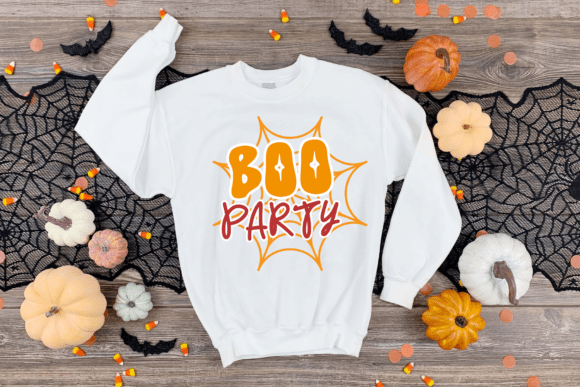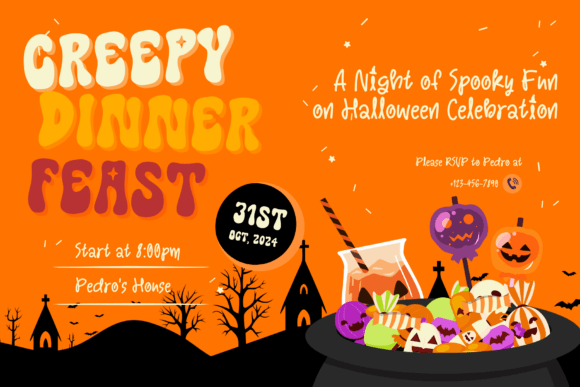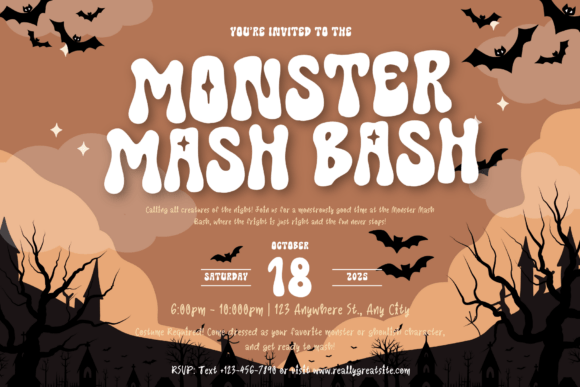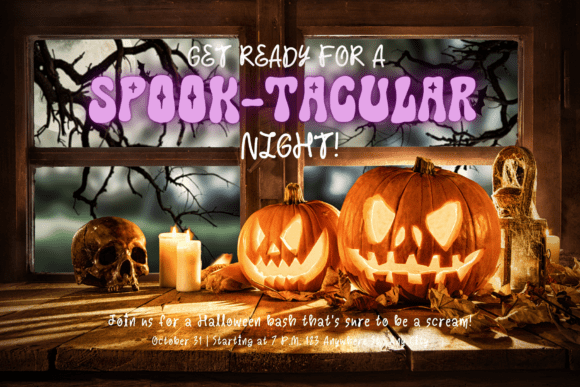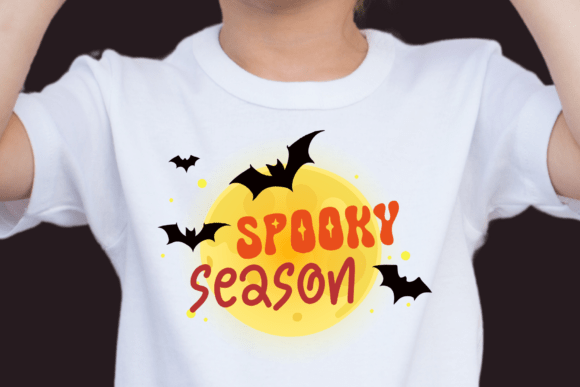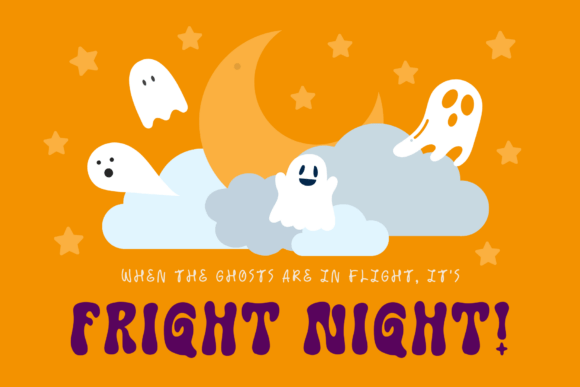
Introduction to Retro Witch Font
Do you remember the thrill of rummaging through your grandmother’s attic, uncovering old trinkets and dusty treasures that spark a wave of creativity? For designers, those moments can be the starting point for a new project, and the right font can be the magic that brings it all together. If you’re looking for a font that embodies the spirit of the 60s and 70s, you’re in luck, because we’re about to dive into the world of the Retro Witch Font.
This enchanting duo font is a masterful combination of a display and handwritten typeface that screams cool and groovy. With its playfulness and authenticity, the Retro Witch Font is the perfect design resource for any creative project that needs a high-quality, free download with a transparent background.
Whether you’re designing a logo, branding, ad, invitation, or greeting card, the Retro Witch Font is a valuable addition to your design arsenal. Its versatility and charm make it a must-have for designers who crave unique and eye-catching designs that stand out from the crowd.
Key Features of Retro Witch Font
- Unique, hand-drawn design inspired by vintage illustrations and mystical themes, perfect for creative projects.
- Supports a wide range of languages, including Latin, Cyrillic, and Greek alphabets, making it a versatile design resource for international projects.
- Perfect for designers seeking a distinctive, magical aesthetic for their creative projects, from fantasy novels to advertising campaigns.
Honest Review: Retro Witch Font
As a designer, I’m always on the lookout for high-quality design resources that can elevate my creative projects. The Retro Witch Font is a free download that caught my eye, and I’m excited to share my honest review.
What works well: ✨ The Retro Witch Font is a unique and stylish font that adds a touch of magic to any design project. Its vintage vibe and eclectic flair make it perfect for projects that require a retro or mystical feel. The font is highly customizable, and I love that it comes with a transparent background, making it easy to layer over other design elements.
What’s not so great: ⚠️ While the Retro Witch Font is a great addition to any design arsenal, it’s not without its limitations. The font is only available in a few weights, which may limit its versatility for projects that require a wider range of font styles. Additionally, the font’s eclectic nature may not be suitable for all design projects, especially those that require a more traditional or professional look.
Overall, I’m impressed with the Retro Witch Font, and I think it’s a great resource for designers who are looking for a unique and high-quality font for their creative projects. With a little creativity and experimentation, this font can be used in a wide range of design applications.
- Unique and stylish design
- Only a few weights available
- May not be suitable for all design projects
Retro Witch Font
The Retro Witch Font is perfect for creative projects such as:
- Designing invitations for a witch-themed party
- Creating a logo for a metaphysical business
- Adding a touch of magic to a book cover or magazine design
Tips for Getting the Most Out of the Retro Witch Font
To get the most out of the Retro Witch Font, try pairing it with other design elements such as: